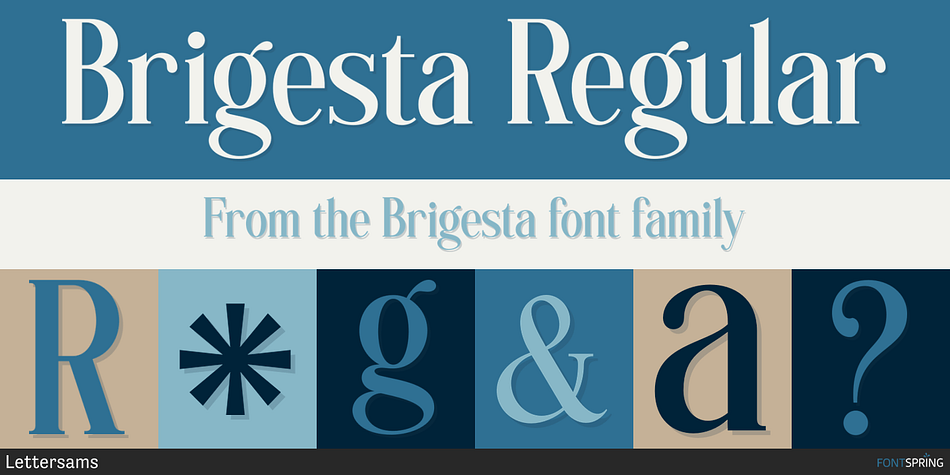
Brigesta Regular
Brigesta is a display serif font family. This typeface has two styles and was published by Lettersams.
Brigesta is a serif display font featuring classic glyphs developed in a modern and classy style. This font idea has various references, from classic to modern, making it the perfect typeface with a distinct and contemporary look. This font offers a broad set of options for creating headlines, logos and headlines. It’s perfect for books, magazines, advertising, editorial, packaging, quotes, branding and more.
Brigesta font completes your access to OpenType features to access a large selection of alternative letters and ligatures, a choice of letters you like from various upper and lowercase letters for a luxurious and distinctive look.
FEATURES: 2 Font weight Uppercase & lowercase letters Alternative & Ligature Styles Numbers & Punctuation Characters with accents Supports Multiple Languages.